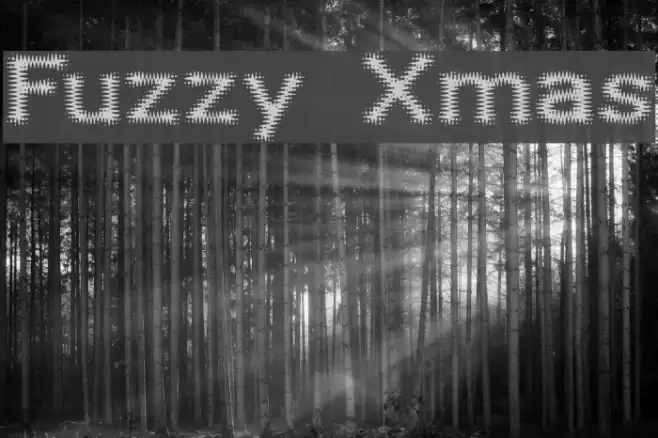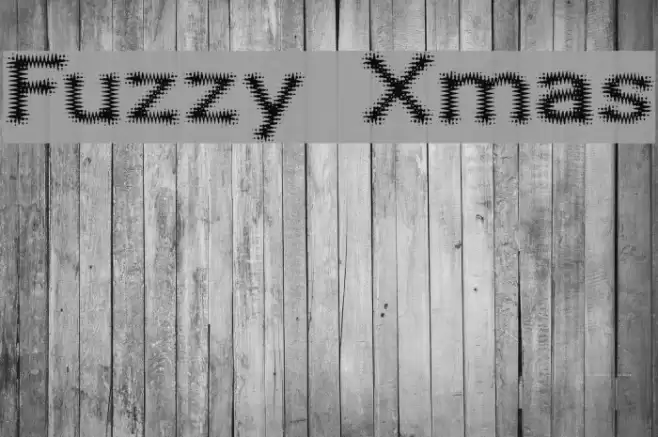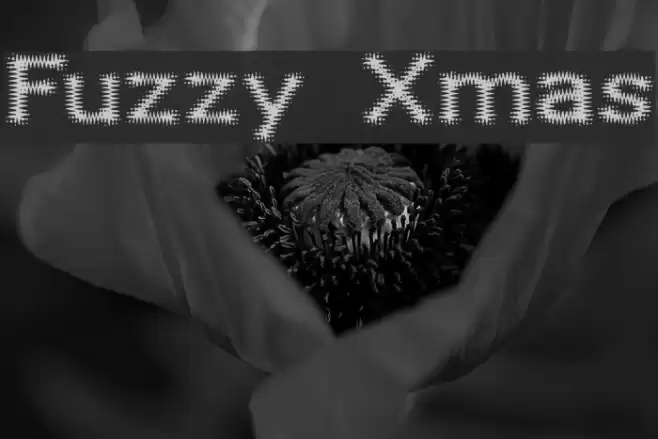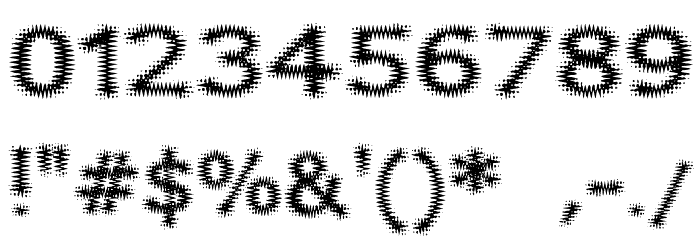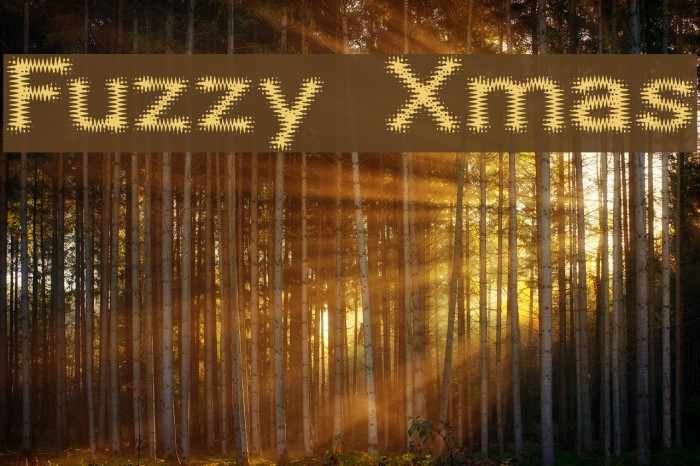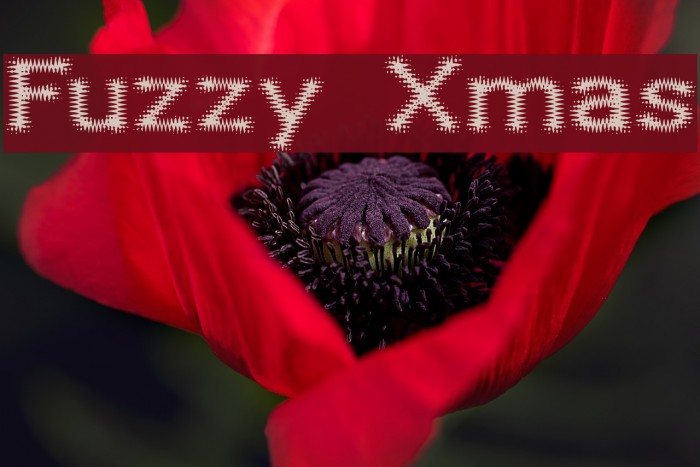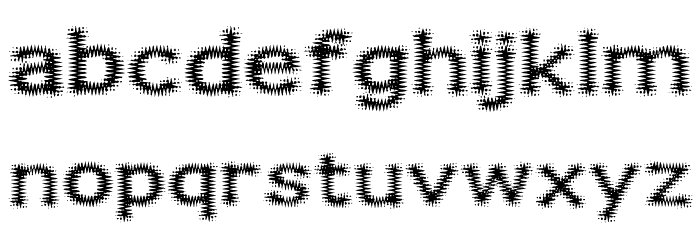
Fuzzy Xmas Font
Fuzzy Xmas Description
This font features a unique and playful design, characterized by its fuzzy, textured edges that give it a festive and whimsical appearance. The letters are bold and well-defined, yet the fuzzy outlines create a sense of movement and energy. This style is reminiscent of holiday decorations, making it ideal for seasonal projects. The uppercase and lowercase letters maintain consistent proportions, while the numerals and special characters are equally distinctive, ensuring readability despite the decorative elements.
A playful, fuzzy-edged font perfect for festive designs from Uncategorized fonts.
- Proposed Projects: Ideal for holiday cards, festive posters, playful branding, and decorative headlines.
- Use Case: Headlines, Logos, Seasonal designs